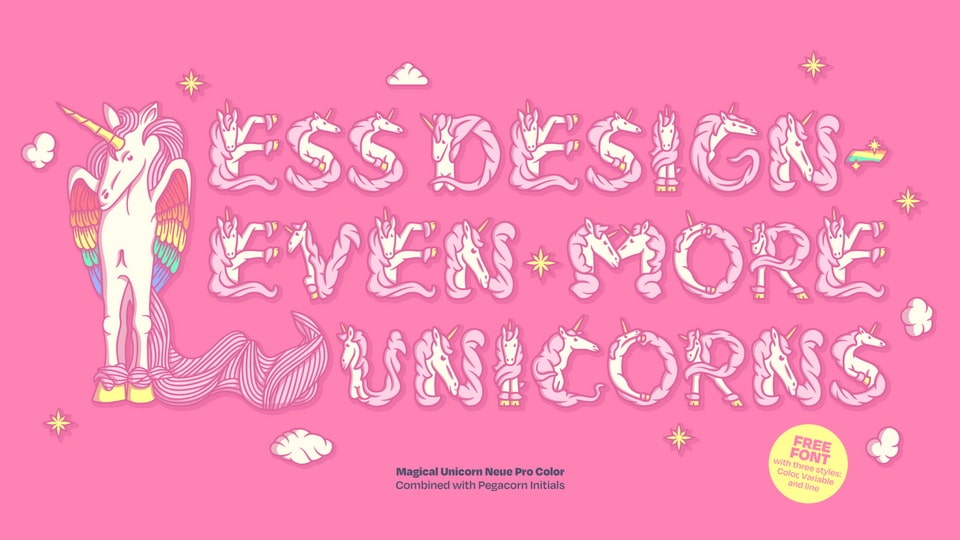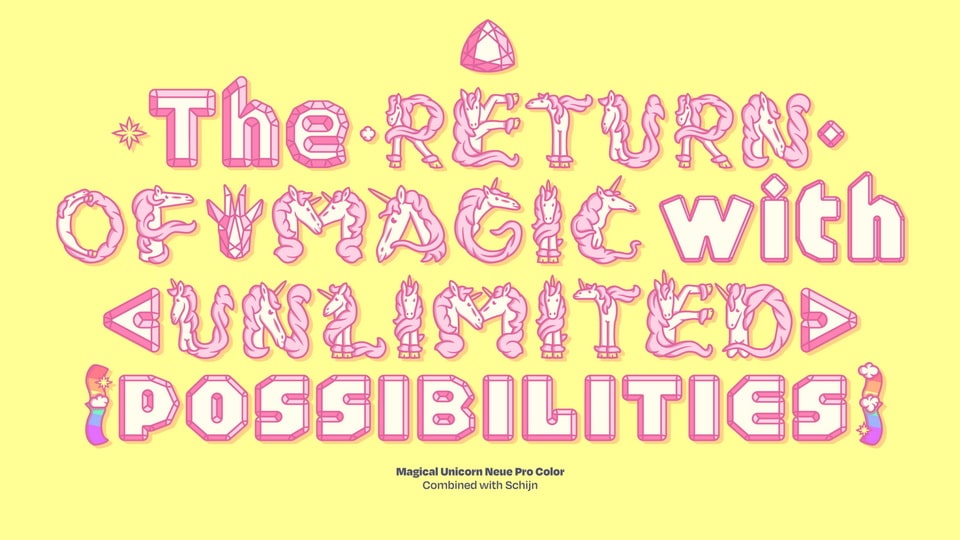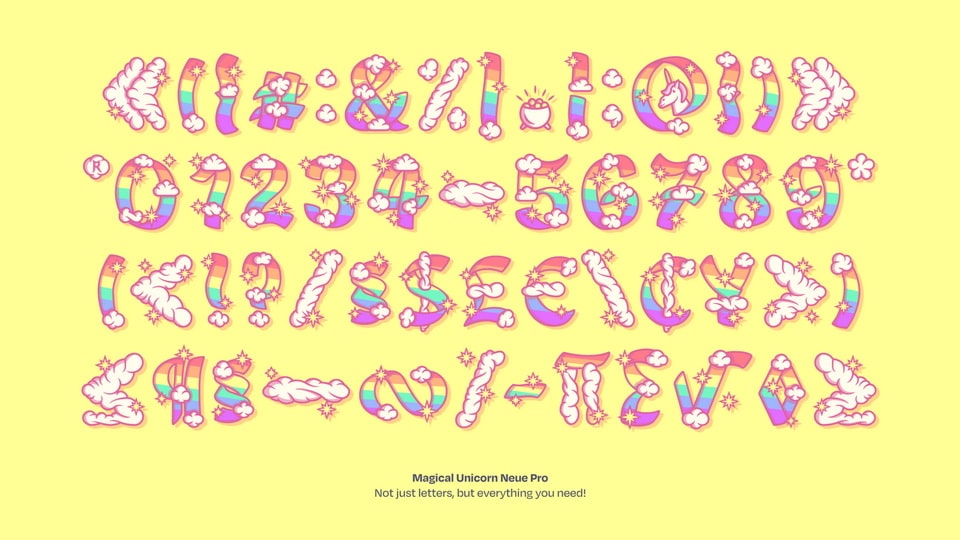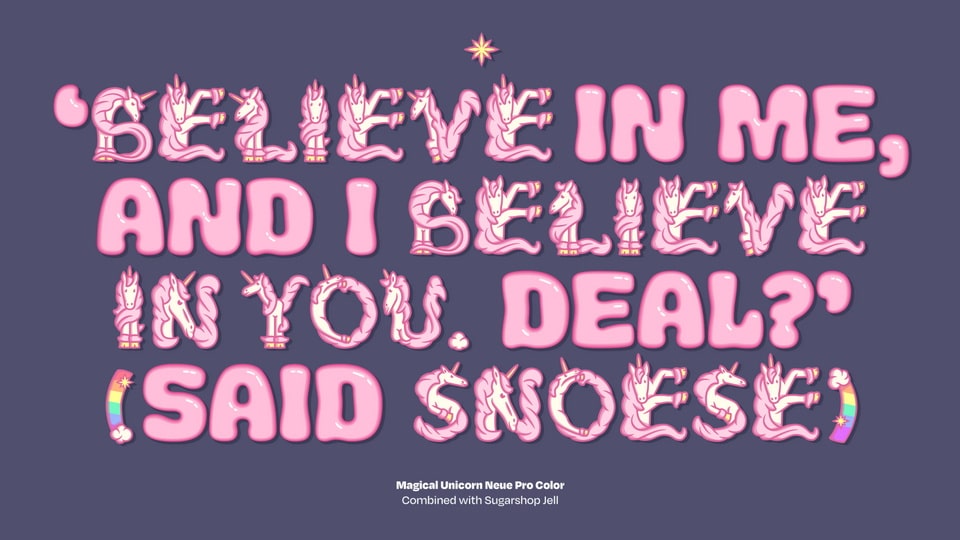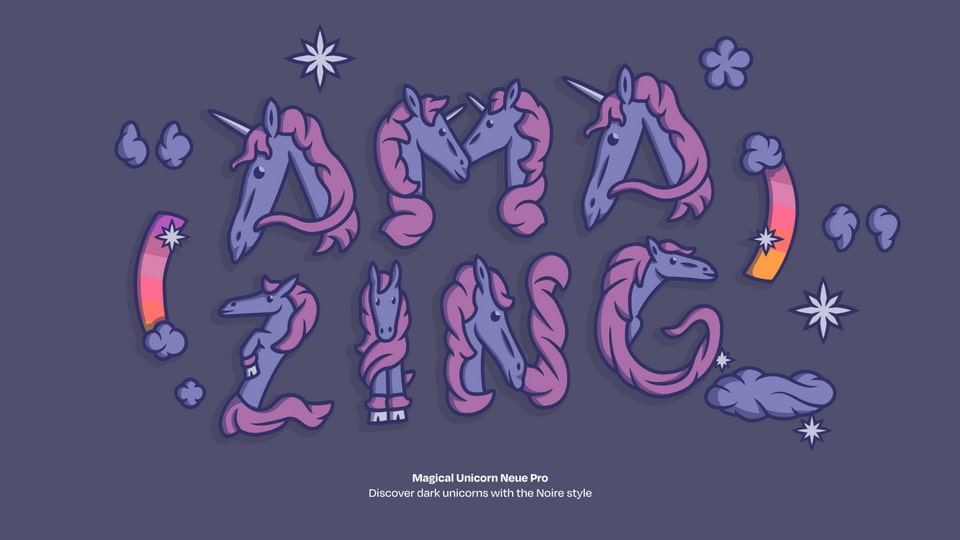
Magical Unicorn Neue Pro is a new standard of unicorn typefaces: All-usable, all-encompassing, colorful and variable when it matters most. The typeface includes 8 styles: 2 color palettes with 2 variants each, two line variants and two variable experimental versions.